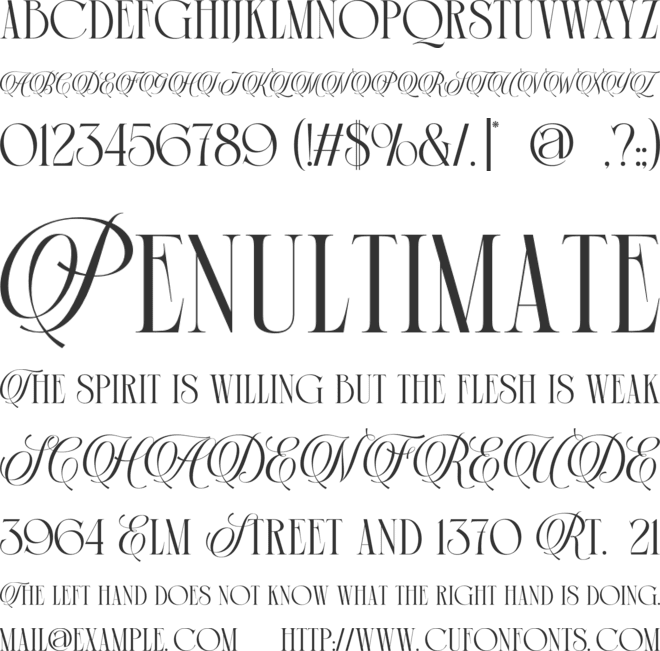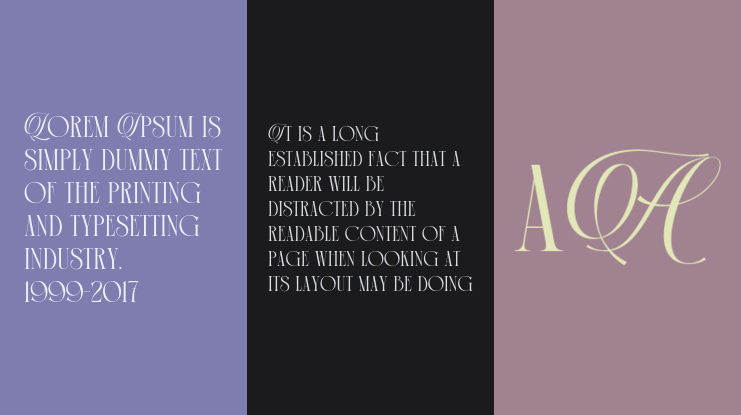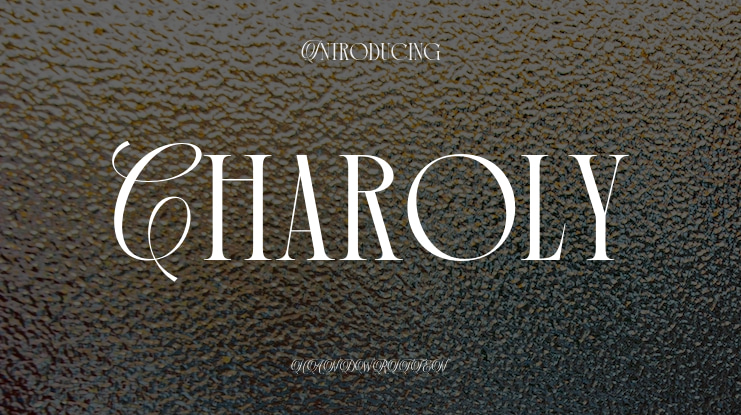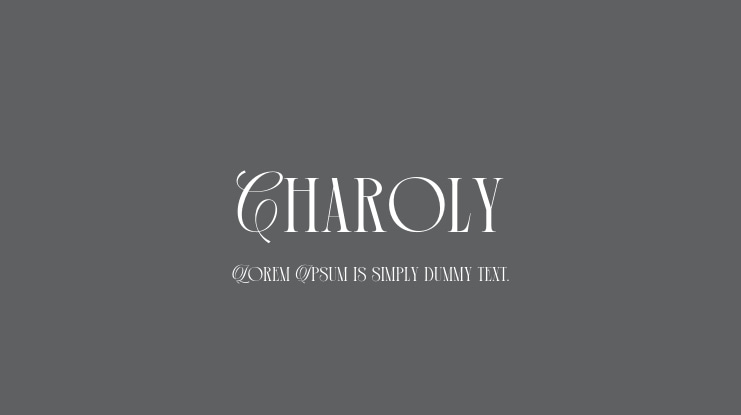
Charoly Font Family
Introducing Charoly Signature, a harmonious blend of classic elegant serif and the charm of script. This duo font creates a stunning combination that works effortlessly across both print and digital design projects. Whether you’re designing for Christmas, weddings, or any special occasion, it is ideal for invitations, greeting cards, branding, and much more.